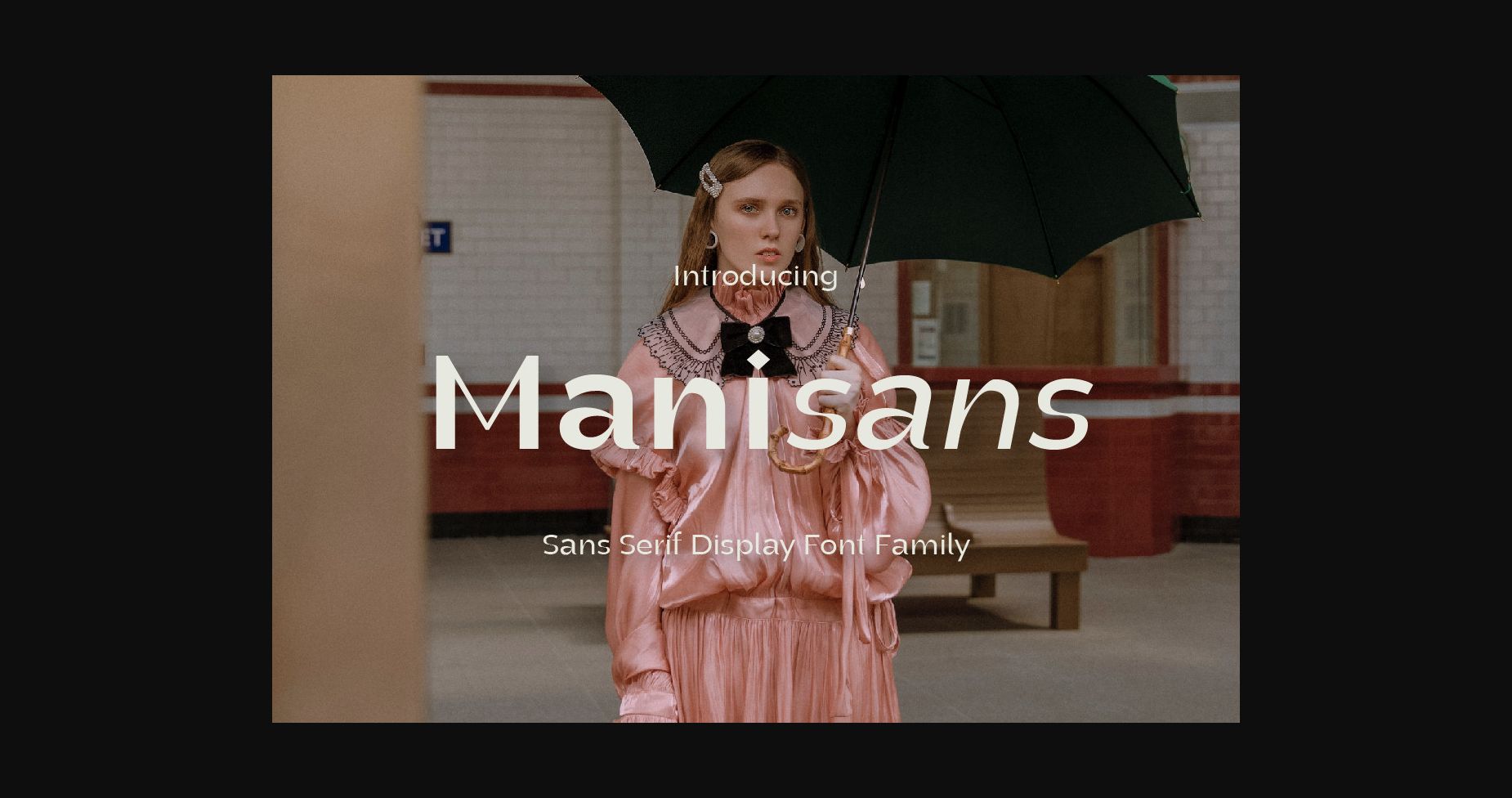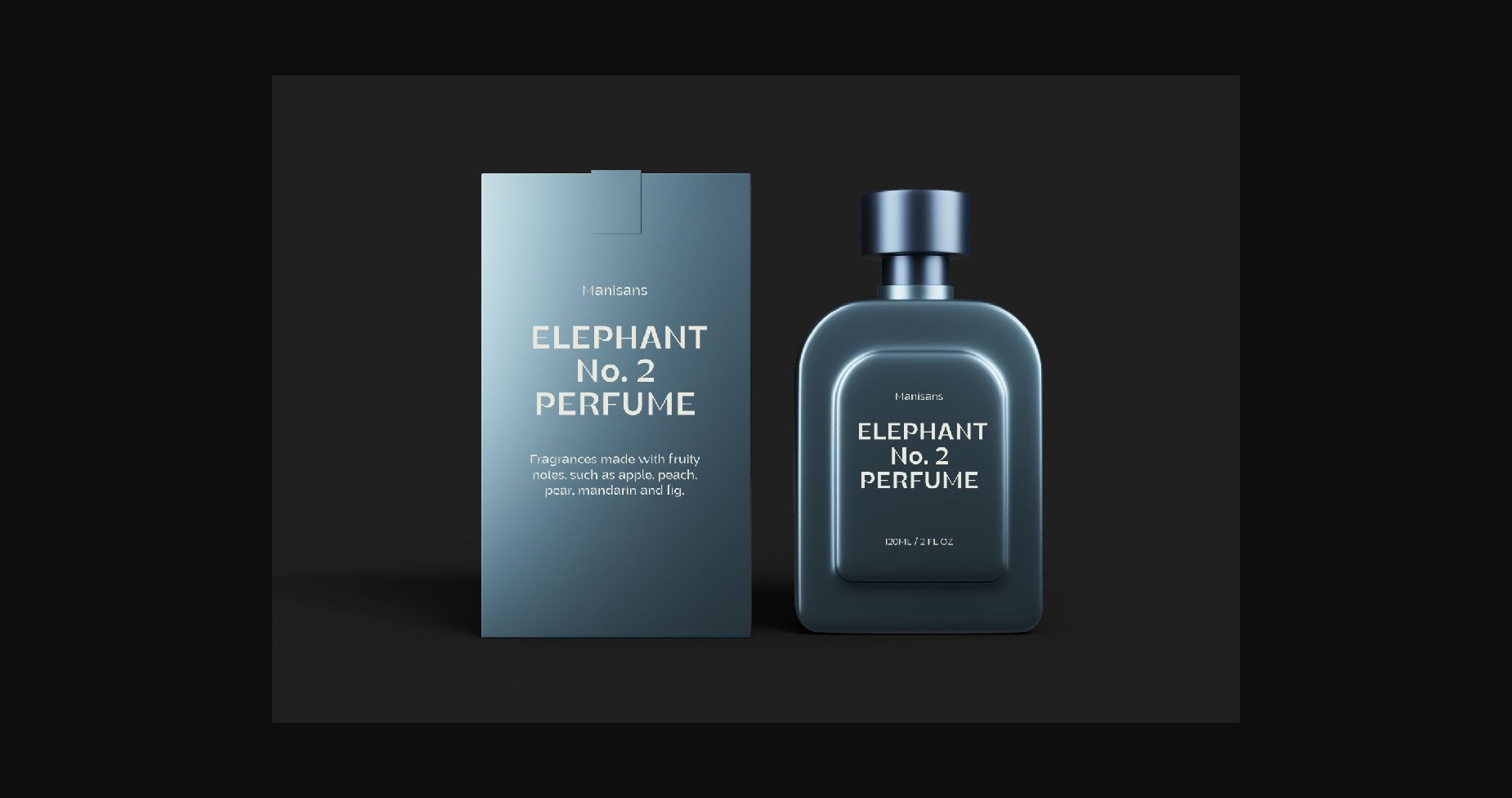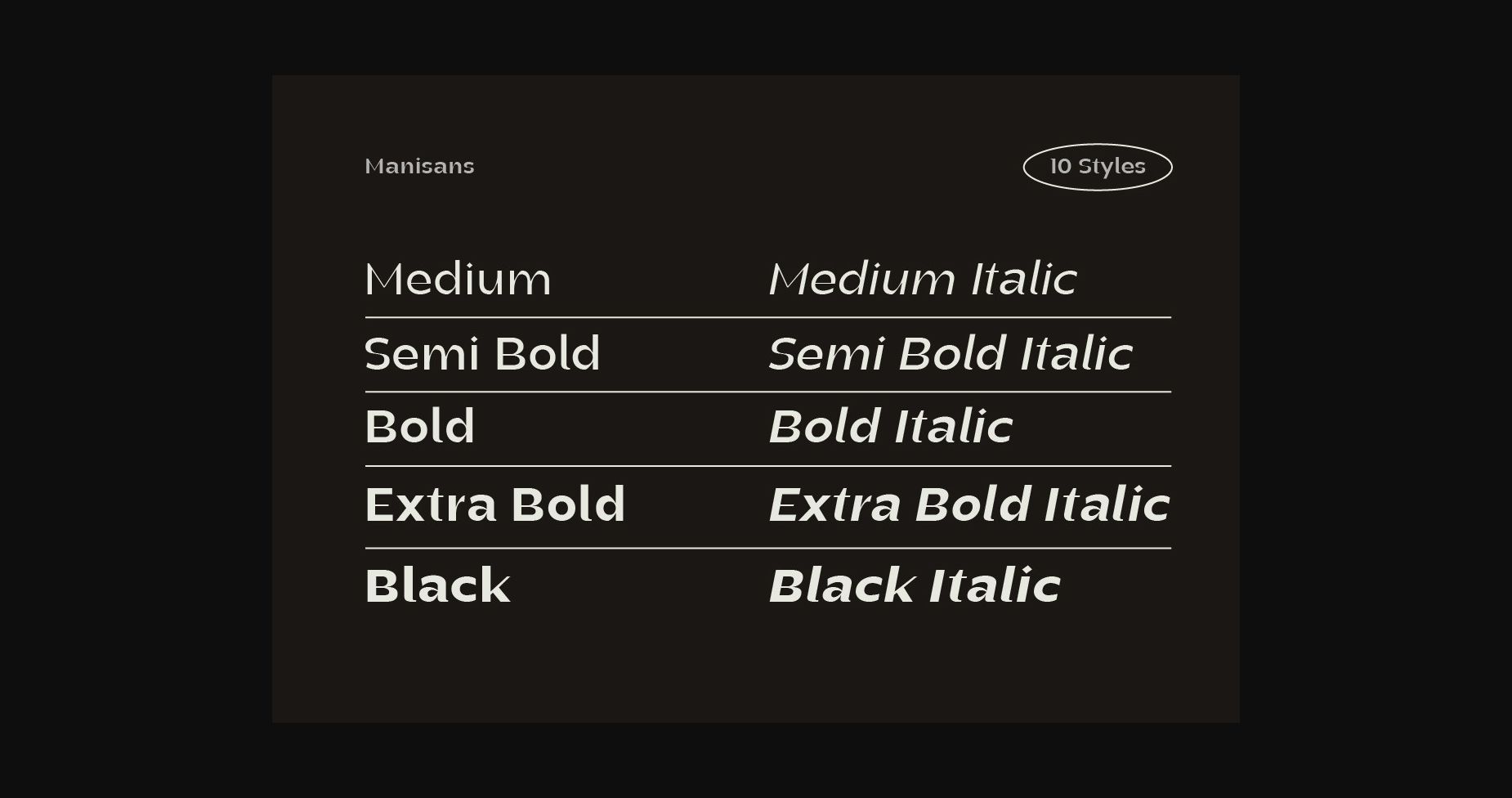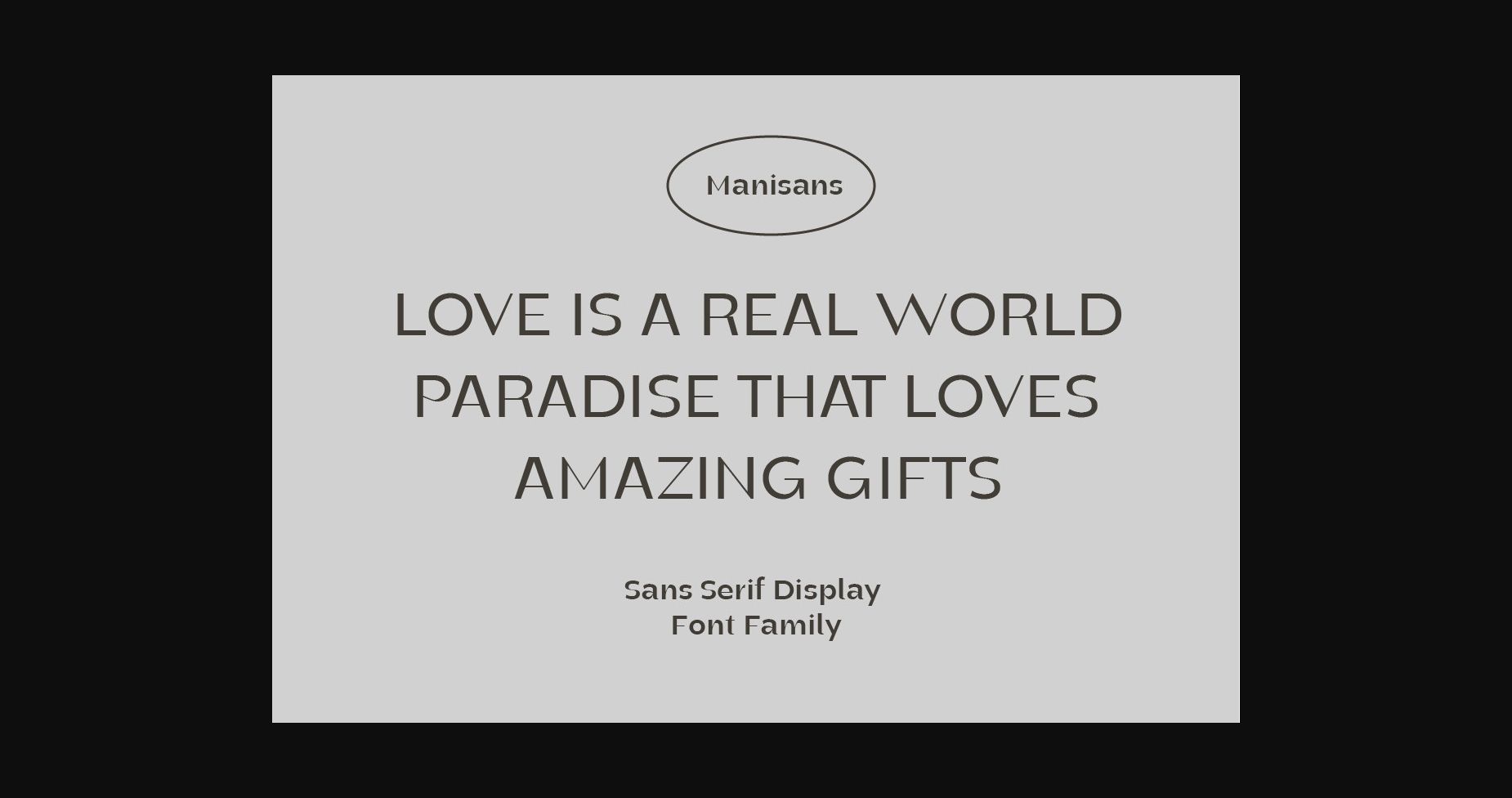
About Manisans Font
Manisans Sans Serif Display Font Family is a sleek, modern font family with an elegant typography style. Created with clarity and boldness in mind, this font offers a variety of bold and italic styles, providing flexibility in its use. Whether used for titles, headings, or poster designs, the Candied Sans Serif Display Font Family provides the clarity and appeal needed to hold an audience’s attention.
Manisans Sans Serif Display Font Family is a great choice for graphic designers looking for a font that is elegant, modern, and can add a creative touch to their projects.